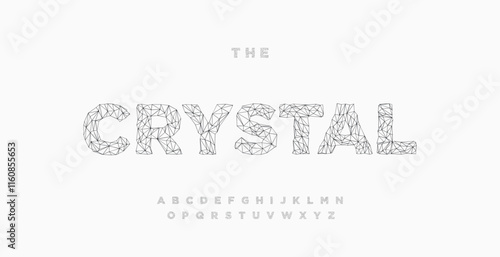
Architect logo alphabet, bold creative letters, unique architectural font for modern elegant logo, stylish minimalist headline, futuristic typographic design. Vector typeset.